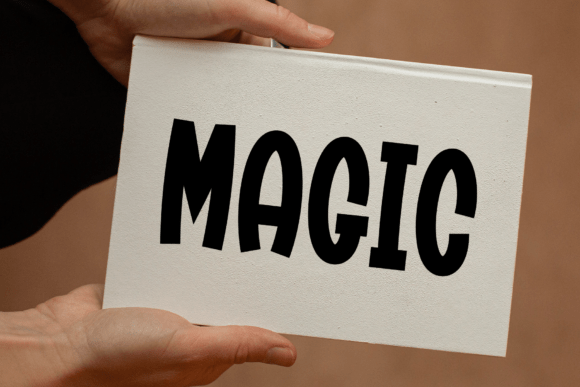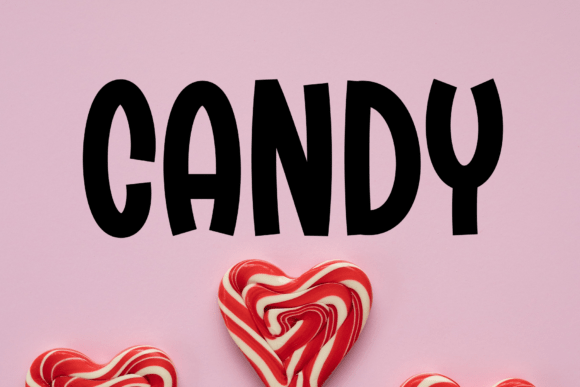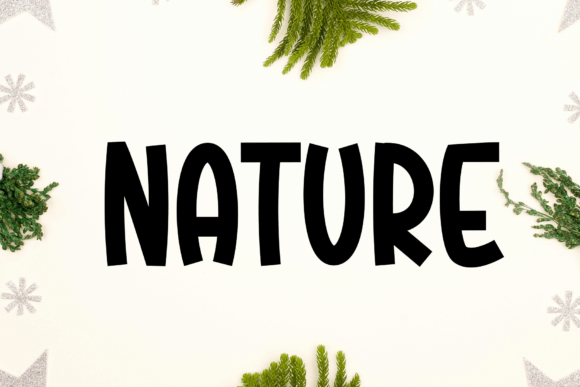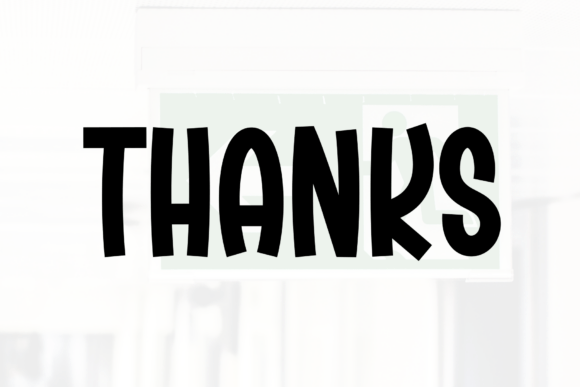
Introduction to Layering Font
As a designer, have you ever found yourself staring at a blank canvas, trying to come up with the perfect concept for a creative project? You know, that moment when the ideas just aren’t flowing, and you need something to spark your inspiration. For me, that moment came when I stumbled upon the Layering Font – a beautiful, handwritten font that looks like it was drawn with a marker.
The Layering Font is a high-quality design resource that exudes a relaxed and sporty feel, making it perfect for branding, logos, wedding supplies, greeting cards, fashion, lookbooks, marketing promotions, and more. Its luxurious and elegant yet casual vibe makes it a valuable addition to any designer’s toolkit.
With its transparent background and smooth lines, the Layering Font is a free download that’s sure to elevate your designs to the next level. Whether you’re working on a personal or professional project, this font is a must-have for anyone looking to add a touch of sophistication and whimsy to their work.
Key Features of Layering Font
- Unique Design Style: Layering Font offers a distinctive, multi-layered design that adds a creative touch to any project, making it an excellent design resource for artists and designers.
Honest Review: Layering Font
As a designer, I’m always on the lookout for high-quality design resources that can elevate my creative projects. Recently, I came across the Layering Font, and I’m excited to share my honest review with you.
- ✨ The font’s versatility: it’s perfect for creating unique, layered text effects that add depth and visual interest to any design.
- ✨ The transparent background option: this allows for seamless integration with other design elements and backgrounds.
- ⚠️ Limited customization options: while the font itself is versatile, the options for tweaking its appearance are somewhat limited.
- ⚠️ Not suitable for large-scale text: the font’s layered design can make it difficult to read when used for extensive blocks of text.
Overall, I’m impressed with the Layering Font’s potential to add a creative twist to my design projects. While it may have some limitations, its unique features and free download make it a valuable resource for designers looking to experiment and push the boundaries of their work.
Layering Font
Layering Font is a versatile design resource that can elevate your creative project to the next level. With its high quality and transparent background, it’s perfect for designers who want to add an extra layer of depth to their designs.
Tips for Getting the Most Out of Layering Font
To get the most out of Layering Font, be sure to experiment with different font sizes, colors, and layer settings to achieve the desired effect. You can also use Layering Font in combination with other design elements to create a truly unique and eye-catching design.
Layering Font is commonly used in a variety of design contexts, including branding, marketing materials, and digital products. It’s a great resource for designers who want to add a touch of creativity and sophistication to their designs.